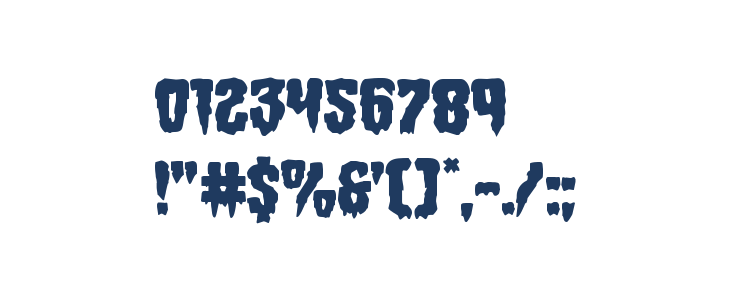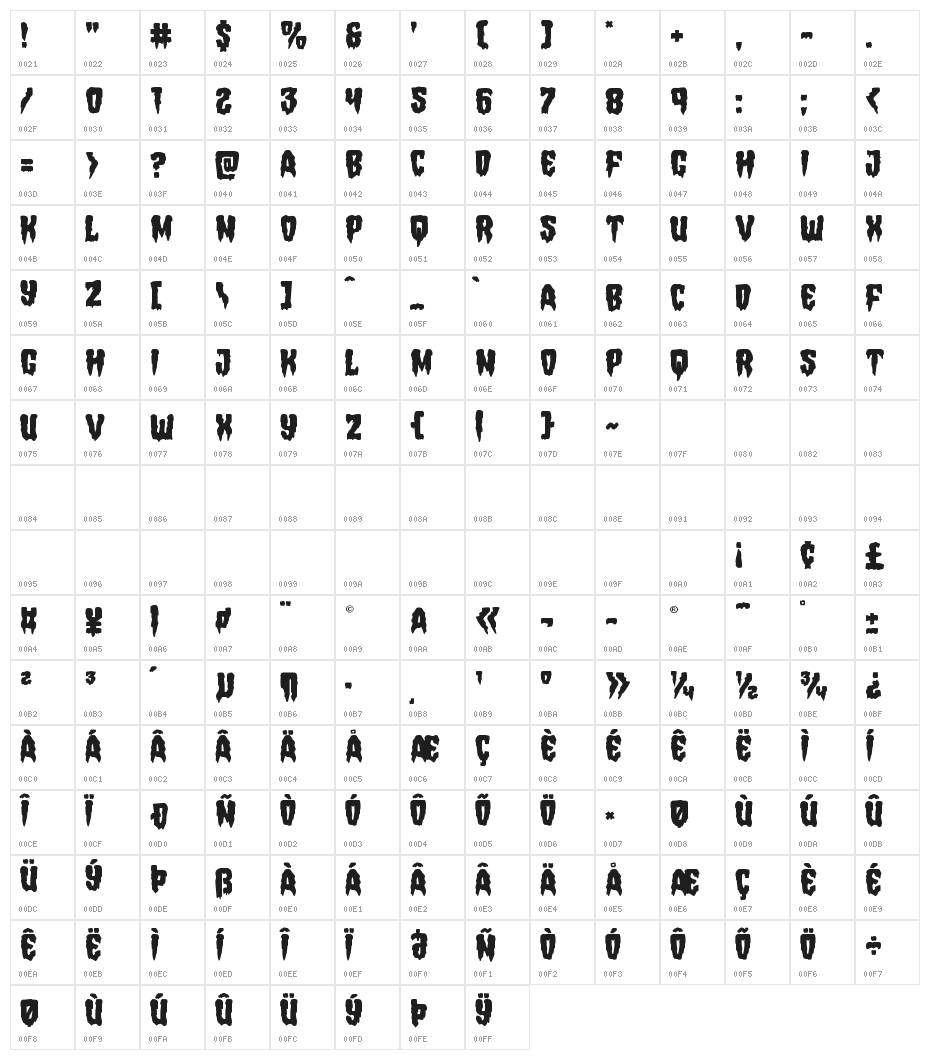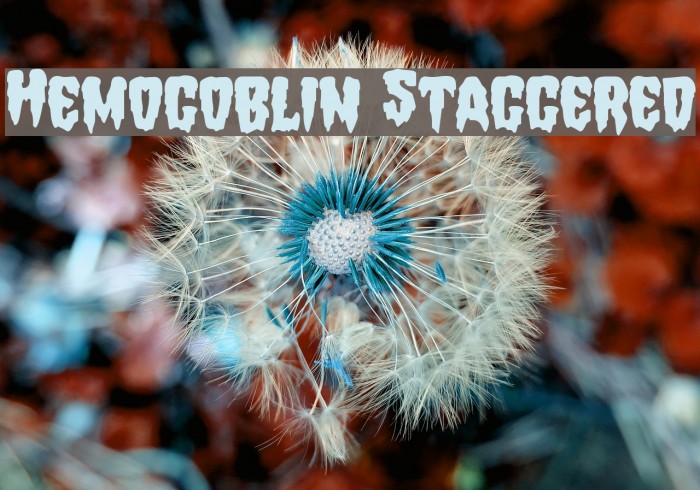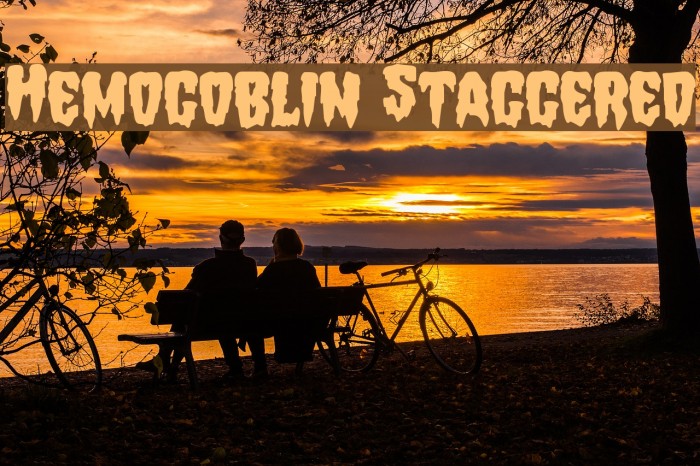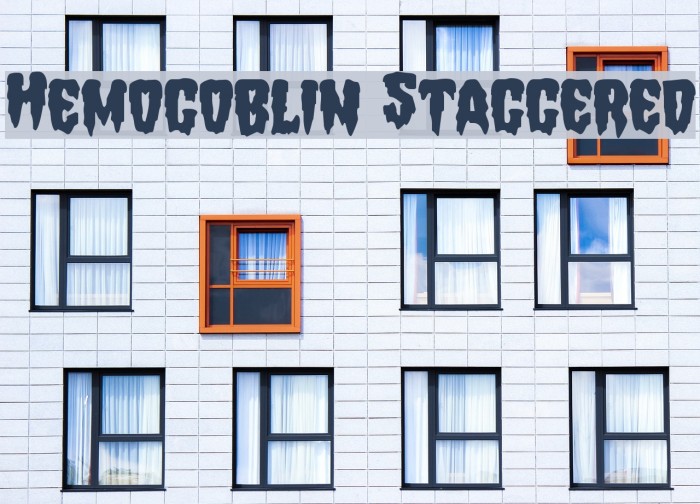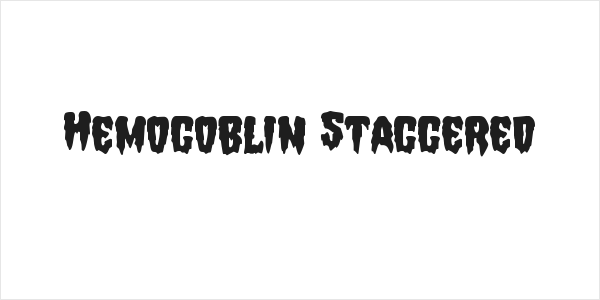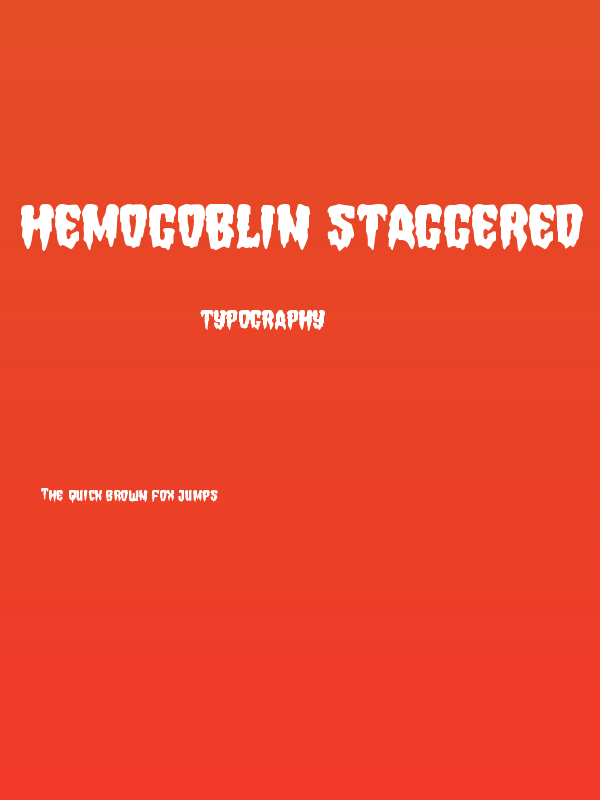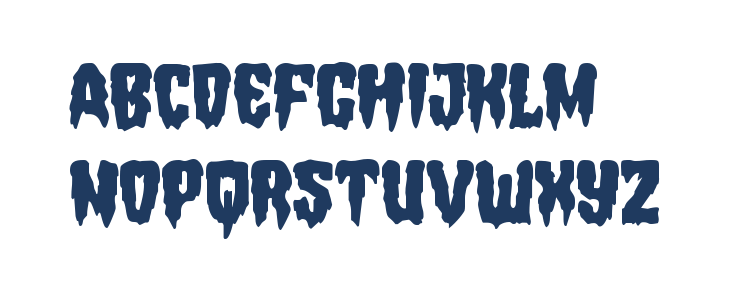
Hemogoblin Staggered Font
Hemogoblin Staggered Description
This font features a bold and jagged design, reminiscent of dripping paint or melting wax, giving it a distinctly eerie and horror-themed appearance. The characters are heavily stylized with irregular edges and a thick, substantial weight that commands attention. The uppercase and lowercase letters maintain a consistent style, with each character exhibiting unique, uneven contours that enhance the font's unsettling aesthetic. The numbers and special characters follow the same design principles, ensuring a cohesive look throughout. This font is ideal for creating a spooky or dramatic effect, perfect for Halloween-themed projects or any design that requires a touch of the macabre.
| Proposed Projects | Ideal for Halloween posters, horror movie titles, themed event invitations, or any project needing a spooky, dramatic touch. |